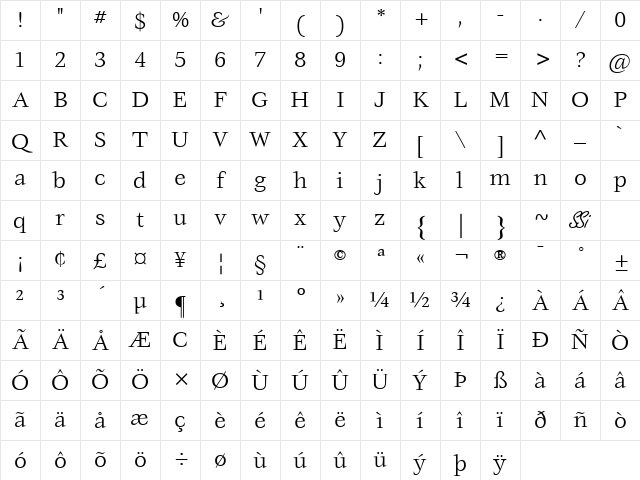
Vorace SSi Regular Free Font
Design Context for Vorace SSi
Vorace SSi is a composed and adaptable typeface that performs quietly and consistently across a wide range of design contexts.
Pro Tip: Use Vorace SSi in both headline and body roles to test its range before committing to a single application.